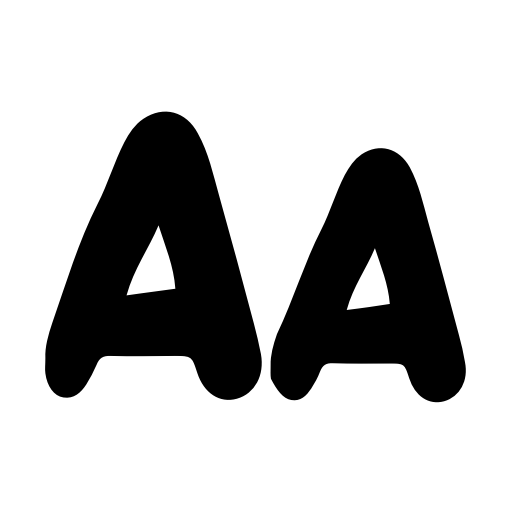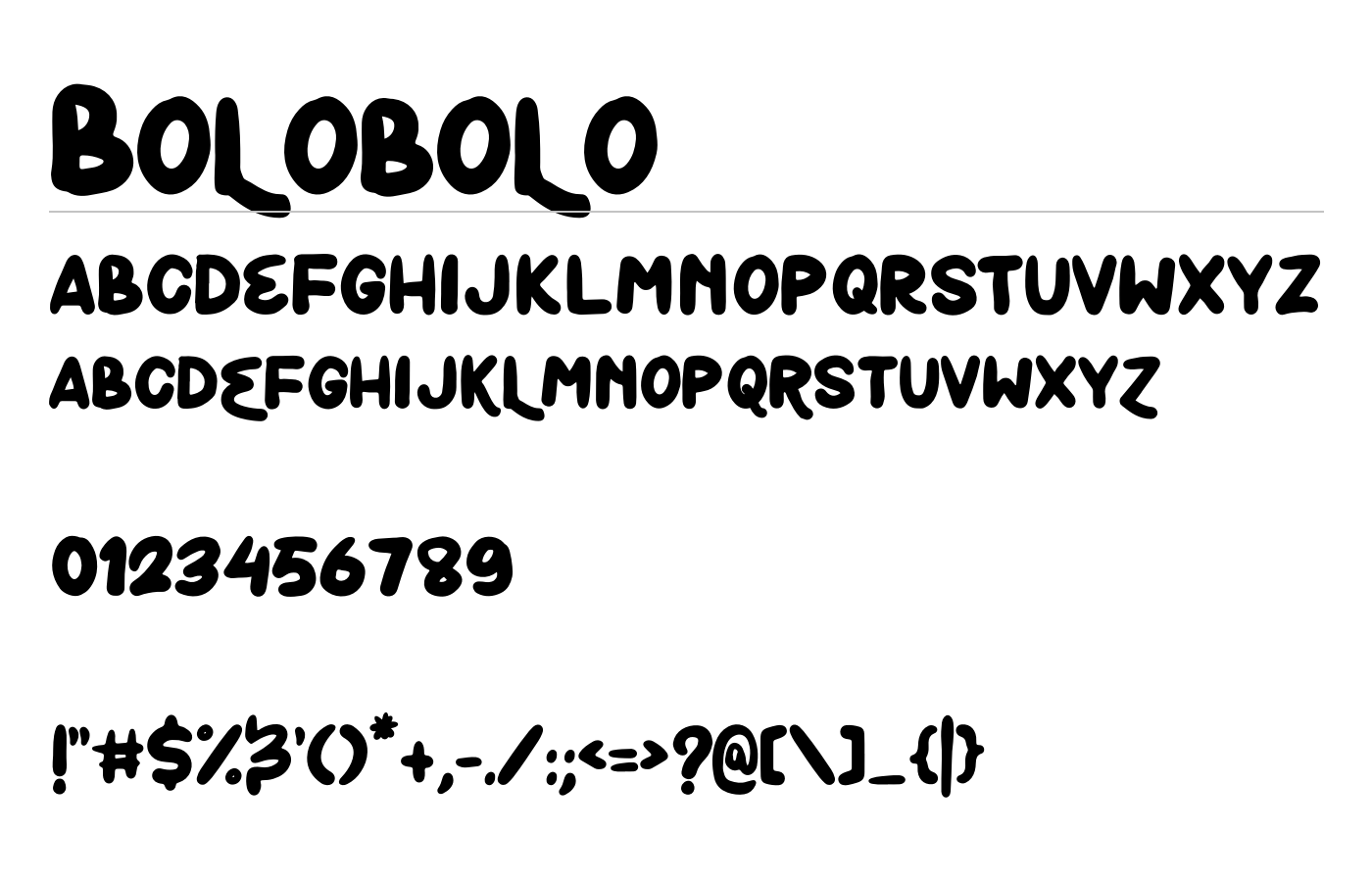
Bolobolo is a playful, bold sans serif font with a rounded, hand-drawn feel that adds warmth and friendliness to any design. Its chunky letterforms and irregular shapes create a casual, approachable look, making it ideal for creative projects, branding for kids, or fun headlines that need personality. This font works best where a cheerful and informal tone is desired, lending charm without sacrificing readability.
Bolobolo Font
About Bolobolo Font
| Font family | Bolobolo Font |
| Designer | Farid Aulia Rahman |